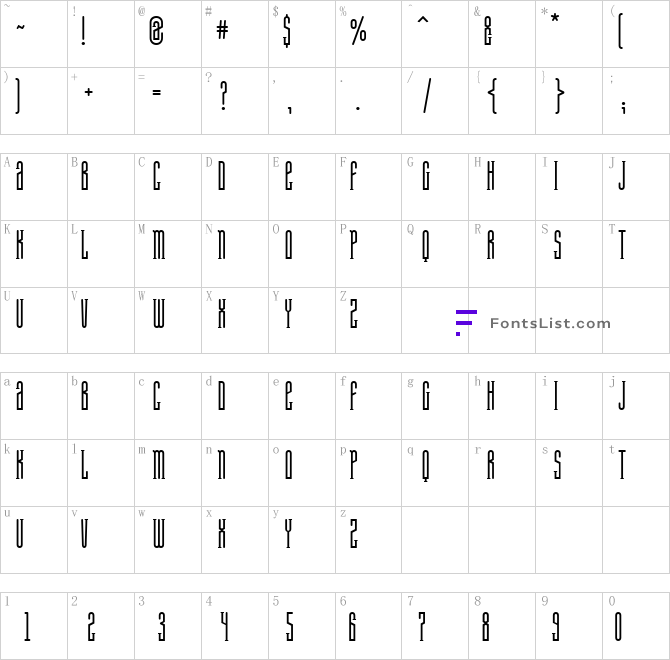
- Font Name:Ambu
Ambu.ttf is a very beautiful artistic font, Ambu.ttf is widely used in the design and printing of various books and pictures,Ambu.ttf has a strong visual impact,Ambu.ttf is a commonly used font in newspapers, magazines and books, and is used in posters, e-commerce Poster design, store design, logo design, font design and other fields.Ambu.